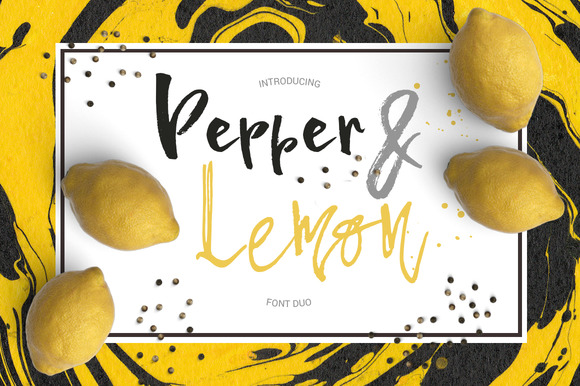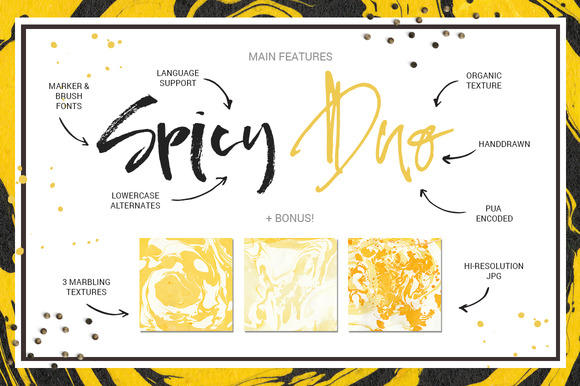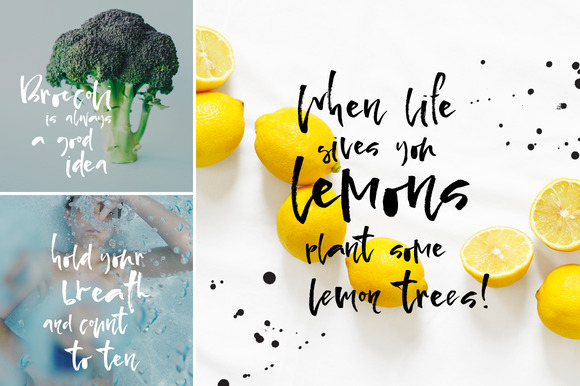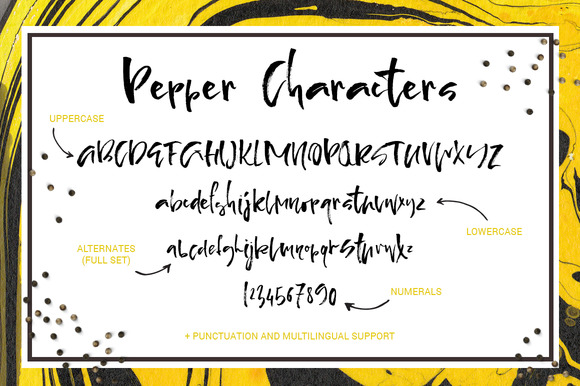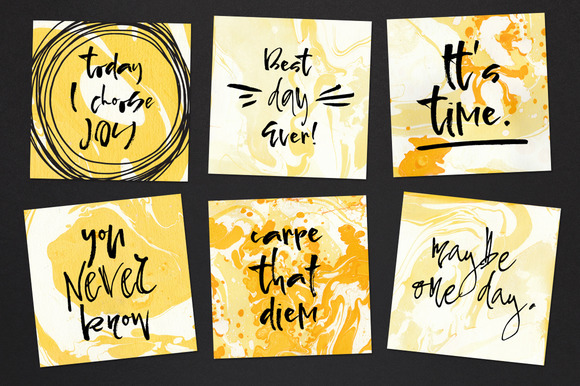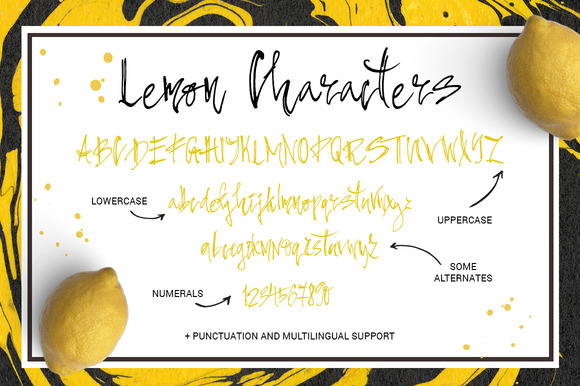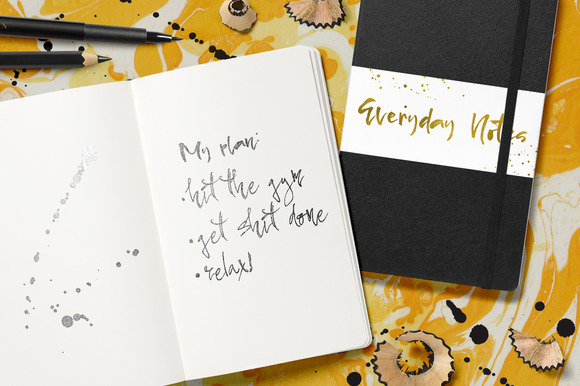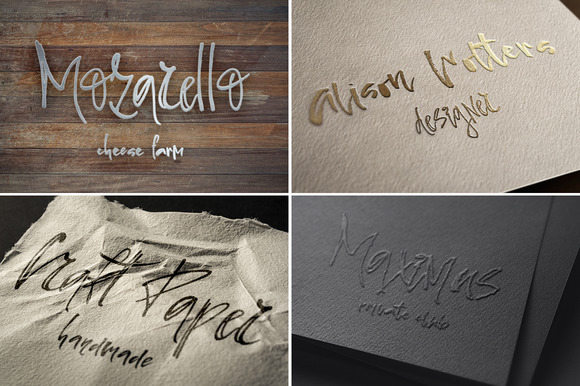
Pepper & Lemon Font
About Pepper & Lemon Font
Pepper & Lemon are a font duo with character. Pepper is a highly-texturized brush font. Lemon is a marker font with a unique feel.
The fonts work great together.